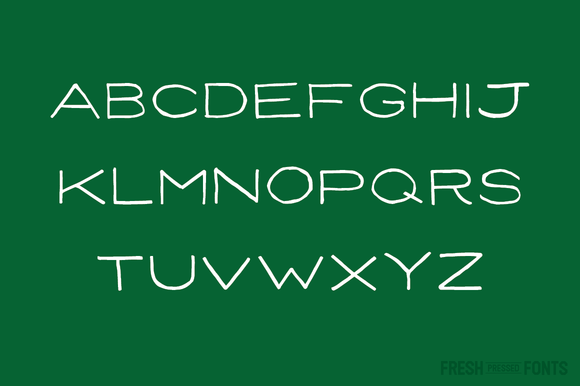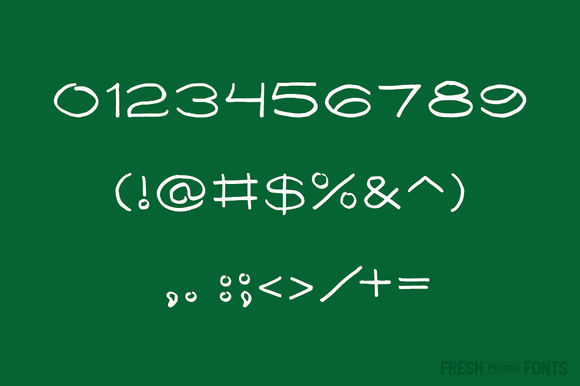
Introduction to Landscaper Font
Landscaper is an all-caps display font based roughly on the accepted and common handwriting of architects.
Simplified and made a bit more legible, Landscaper becomes a useful display handwriting font that can be used for many purposes .
Key Features of Landscaper Font